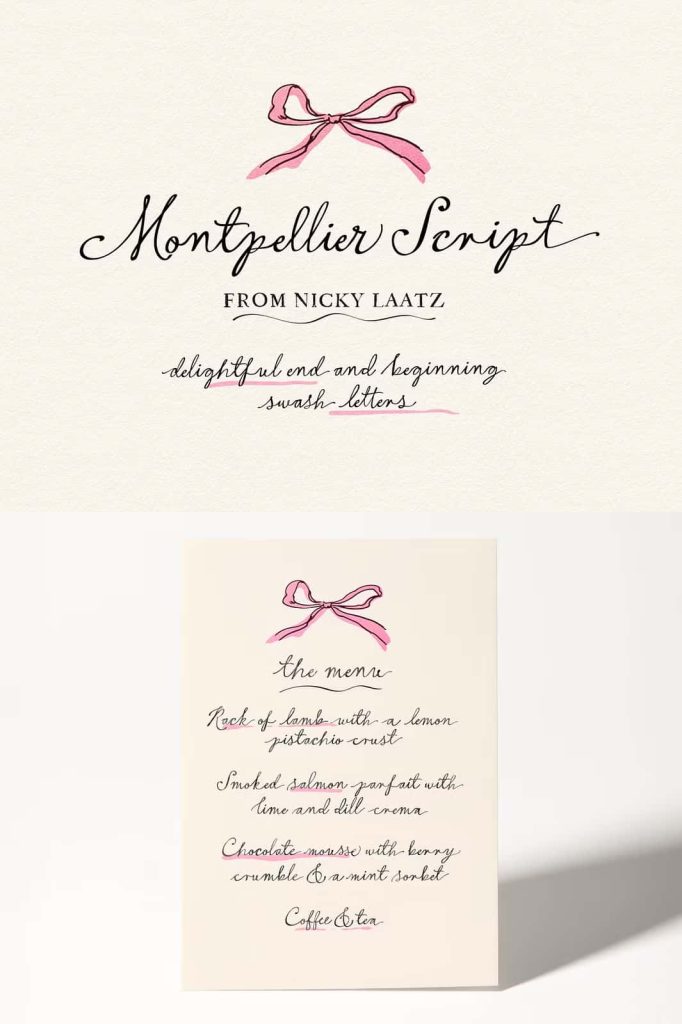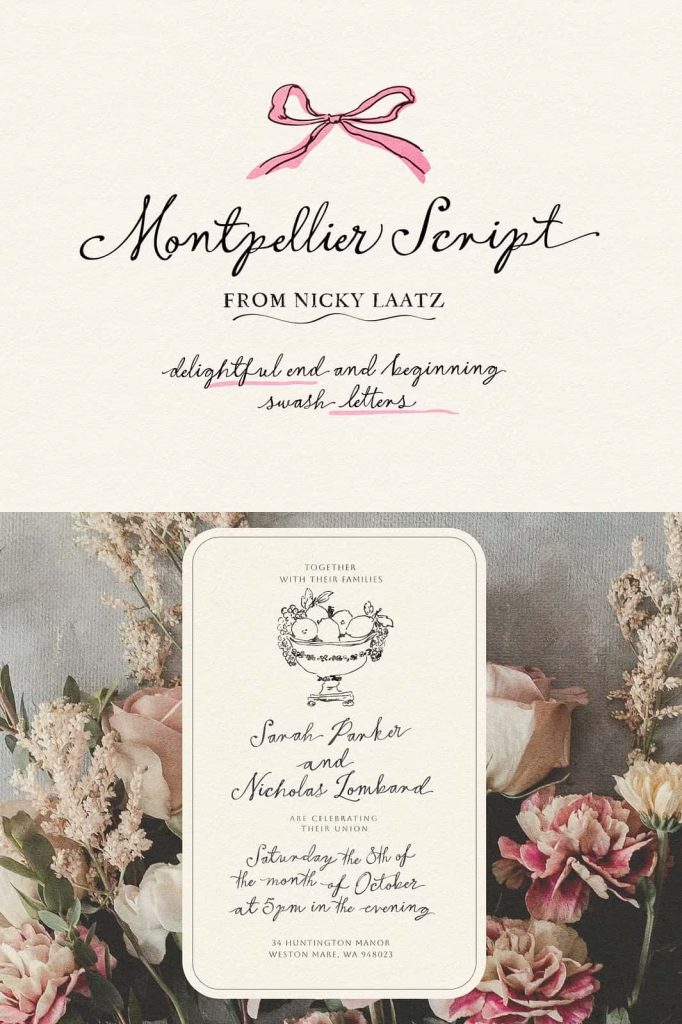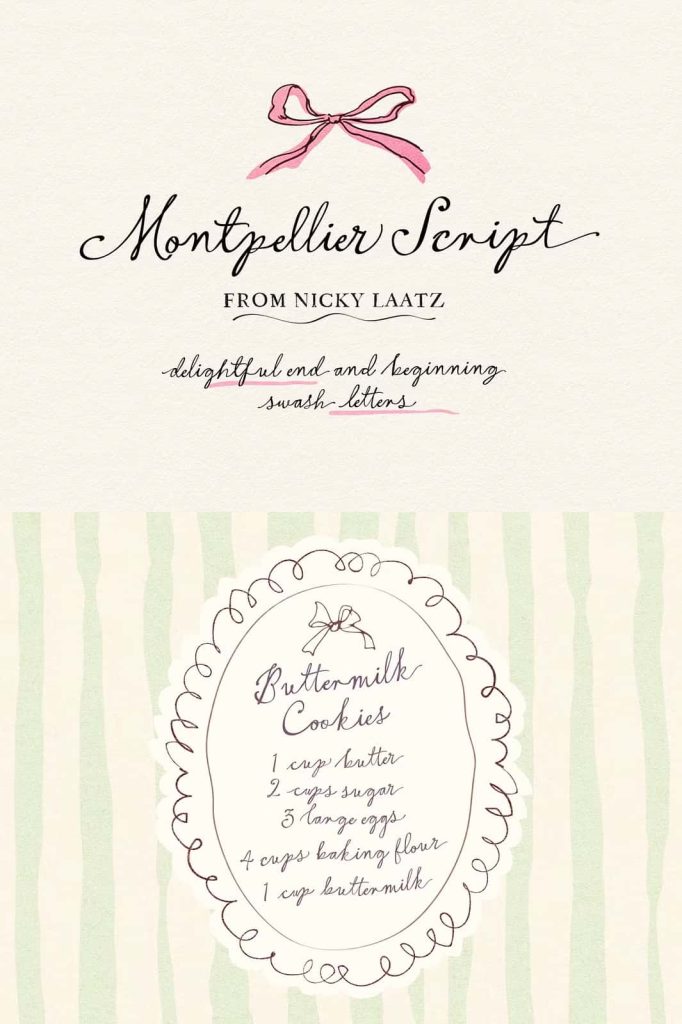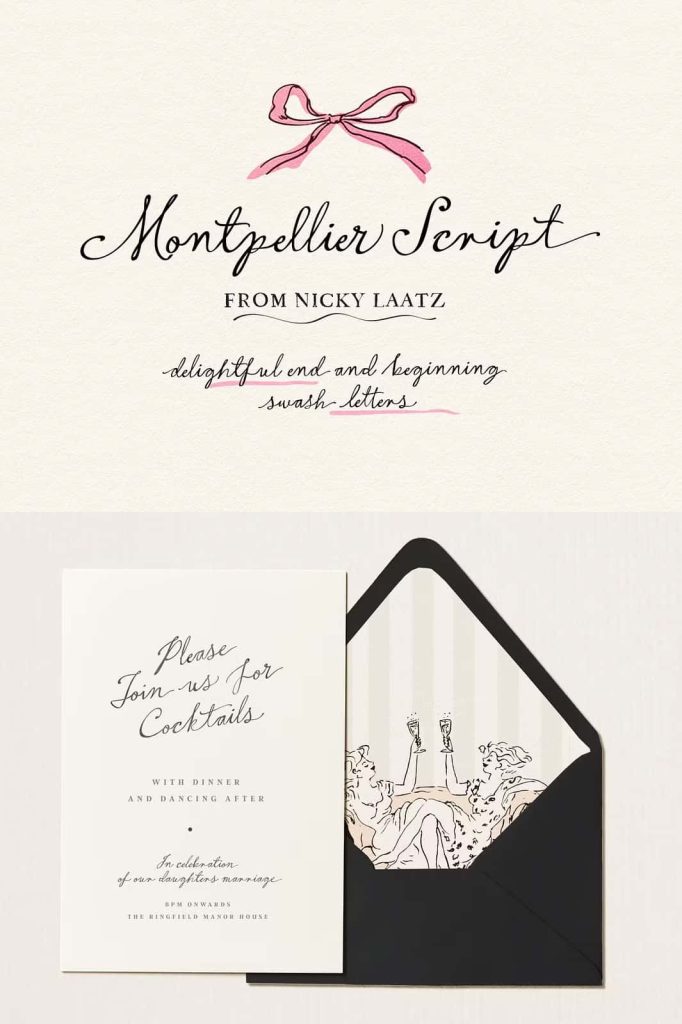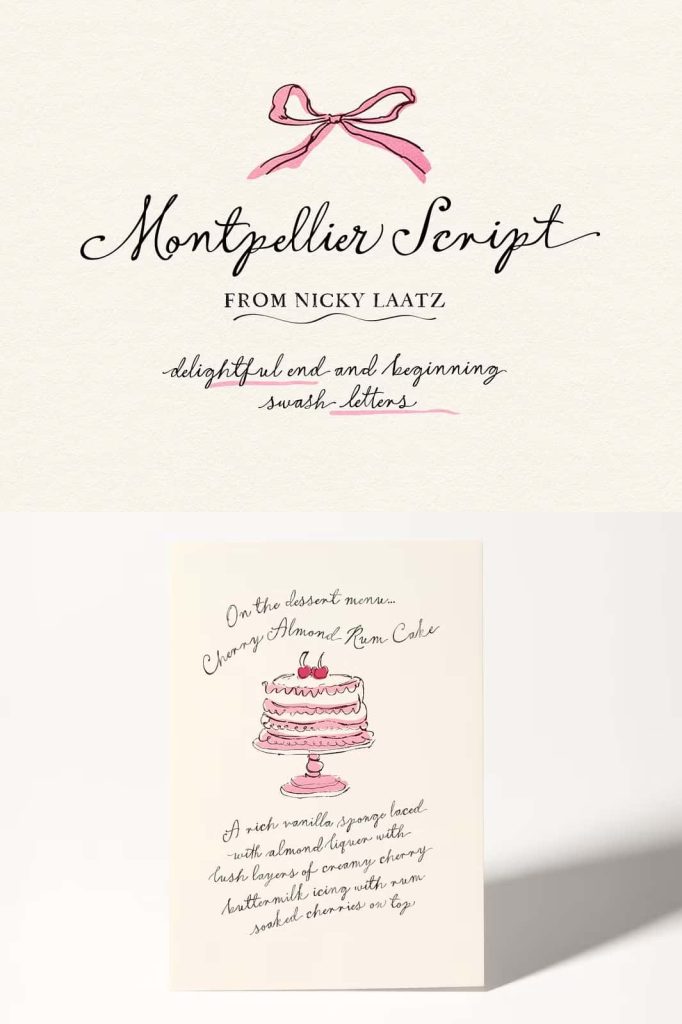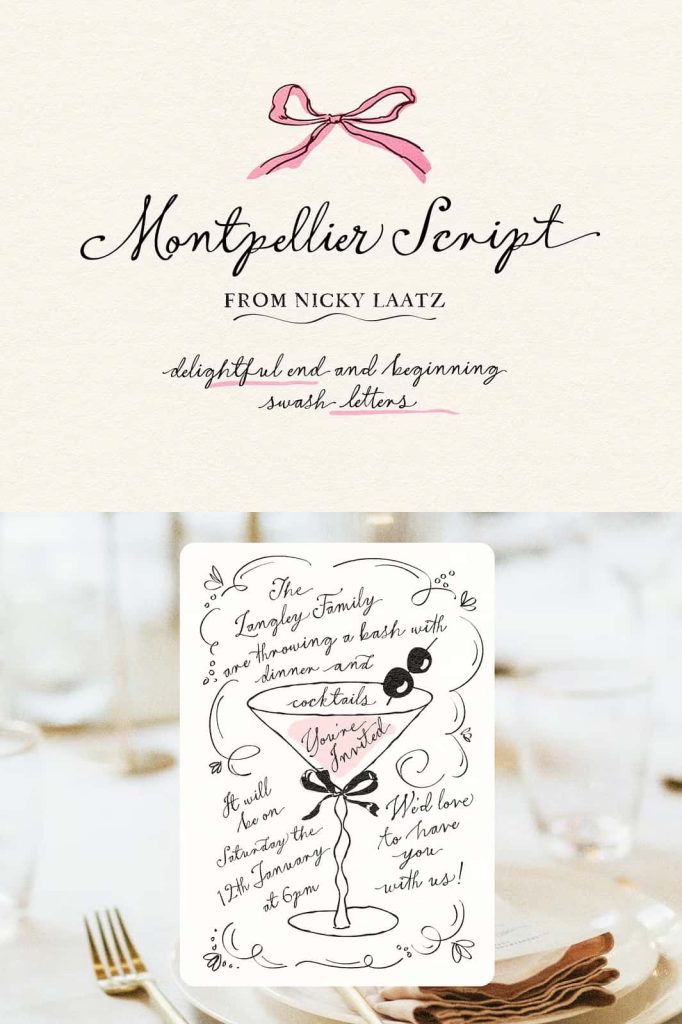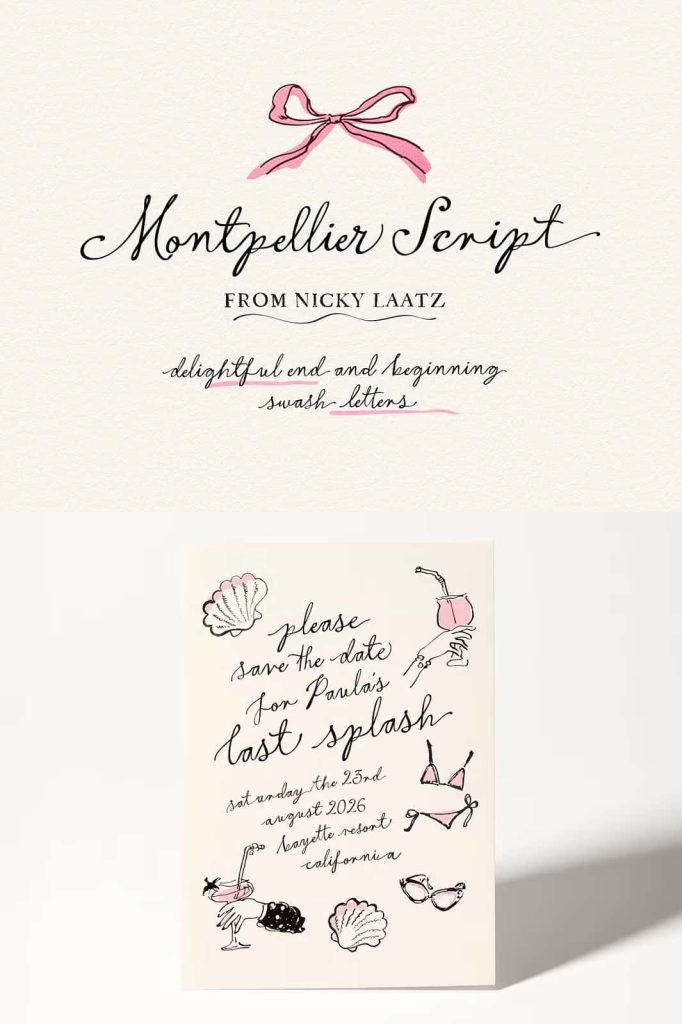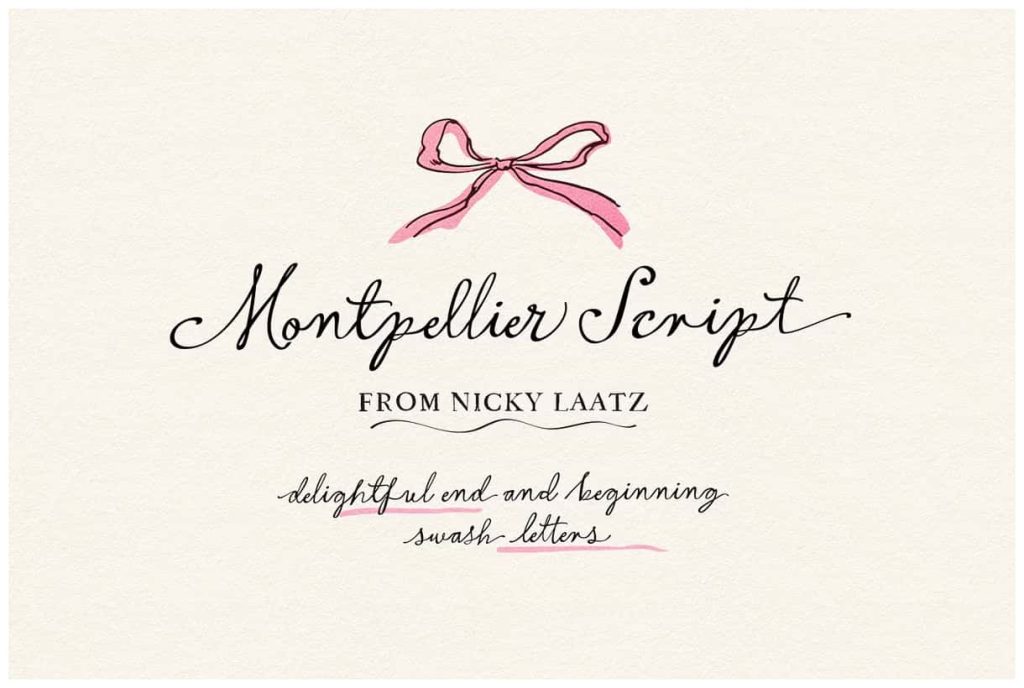
Montpellier Script
Montpellier Script Font – Elegant Calligraphy with Playful Sophistication
Montpellier Script Font is a lighthearted calligraphy typeface that captures the charm of natural handwriting while exuding a refined sense of playfulness. Designed with an artistic flair, Montpellier Script balances modern sophistication with an approachable, handwritten touch. Every curve and flourish has been carefully crafted to bring warmth and authenticity to your creative work.
Perfect for designers seeking a stylish, handwritten font that blends elegance with personality, Montpellier Script offers an expressive way to elevate your designs. Whether used for branding, invitations, or digital content, this typeface ensures your words flow gracefully and leave a lasting impression.
A Natural Handwritten Flow
Montpellier Script was designed to mimic the organic flow of authentic handwriting. Its fluid strokes and graceful movement bring text to life, making it ideal for wedding invitations, stationery, product packaging, and personal branding. The font’s lively rhythm and sophisticated balance allow it to adapt seamlessly across a variety of design projects.
Unlike rigid script fonts, Montpellier Script feels free and spontaneous, as though it was written by hand with effortless precision. This natural flow gives your designs warmth, charm, and individuality, making it especially well-suited for projects that aim to express emotion and creativity.
Beautiful Alternates and Flourishes
What truly sets Montpellier Script Font apart is its extensive set of Opentype features. Within its character library, you’ll find a large selection of flourished beginning and ending letter alternates that enhance the beauty of your typography. These artistic swashes allow you to personalize each word, giving it a dynamic and decorative touch.
The font also includes a rich selection of ligatures—special letter combinations that appear more natural and smooth when typed together. These features help eliminate the mechanical look of repeated letters, ensuring that your text looks organic and beautifully handwritten. Additionally, Montpellier Script offers a range of general letter alternates, providing endless possibilities for customization and creative freedom.
Designers can easily activate these features in most design software programs that support Opentype, allowing them to create personalized, flowing text with just a few clicks.
Perfect for Elegant and Expressive Projects
Montpellier Script is the perfect companion for projects that demand sophistication with a hint of playfulness. Its graceful curves and lively style make it suitable for branding, wedding materials, social media graphics, product labels, advertising, and editorial layouts. When applied to logos, it communicates a sense of luxury and approachability. When used for invitations, it adds romance and personal charm.
This font is also a great choice for fashion labels, boutique packaging, and lifestyle brands looking to add a touch of refinement and creativity to their visual identity. With its stylish personality and smooth curves, Montpellier Script captures attention without losing readability, making it versatile for both large headlines and smaller text details.
Designed for Creativity and Elegance
Every aspect of Montpellier Script was created to inspire creativity. Its balanced strokes make it adaptable across various design styles—from minimalist to ornate. It pairs beautifully with serif and sans-serif fonts, allowing you to create contrast and visual harmony in your compositions.
Use Montpellier Script to highlight key messages, emphasize brand names, or bring a personal tone to marketing materials. Its playful sophistication ensures that your designs feel genuine and memorable, leaving a lasting impression on your audience.
Bring Your Words to Life with Montpellier Script
Montpellier Script Font is more than just a calligraphy typeface—it’s an artistic expression of elegance and creativity. With its flowing lines, handcrafted alternates, and natural ligatures, this font gives designers the tools to craft stunning, authentic designs that feel personal and refined.
Whether you’re creating invitations, branding identities, or digital graphics, Montpellier Script adds movement, style, and personality to your work. Its balance of grace and playfulness makes it a must-have for designers who value both aesthetic beauty and functional typography.
Choose Montpellier Script to infuse your next project with charm, authenticity, and timeless elegance. With its luxurious character and natural flow, this script font turns every word into a work of art.